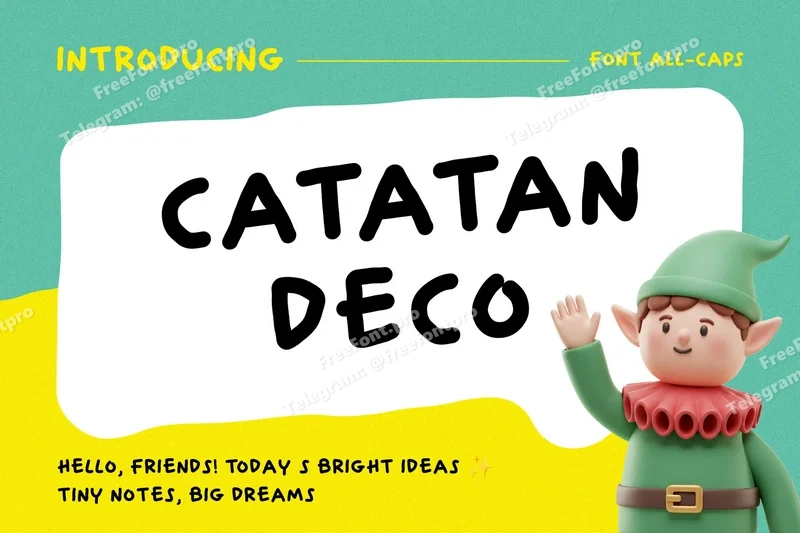
Catatan Deco – Playful Handwritten All-Caps Font
Catatan Deco is a cheerful, hand-drawn display font in all caps. Its chunky, organic shapes deliver friendly, high-impact titles that stay easy to read on posters, thumbnails, worksheets, stickers, packaging, and social content. Perfect for kid-friendly branding, quotes, and classroom materials—use as a headline font or pair with a clean sans-serif for balance. Features: *Uppercase A–Z, *numerals, *basic punctuation *playful, doodle vibe suitable for print and digital projects.